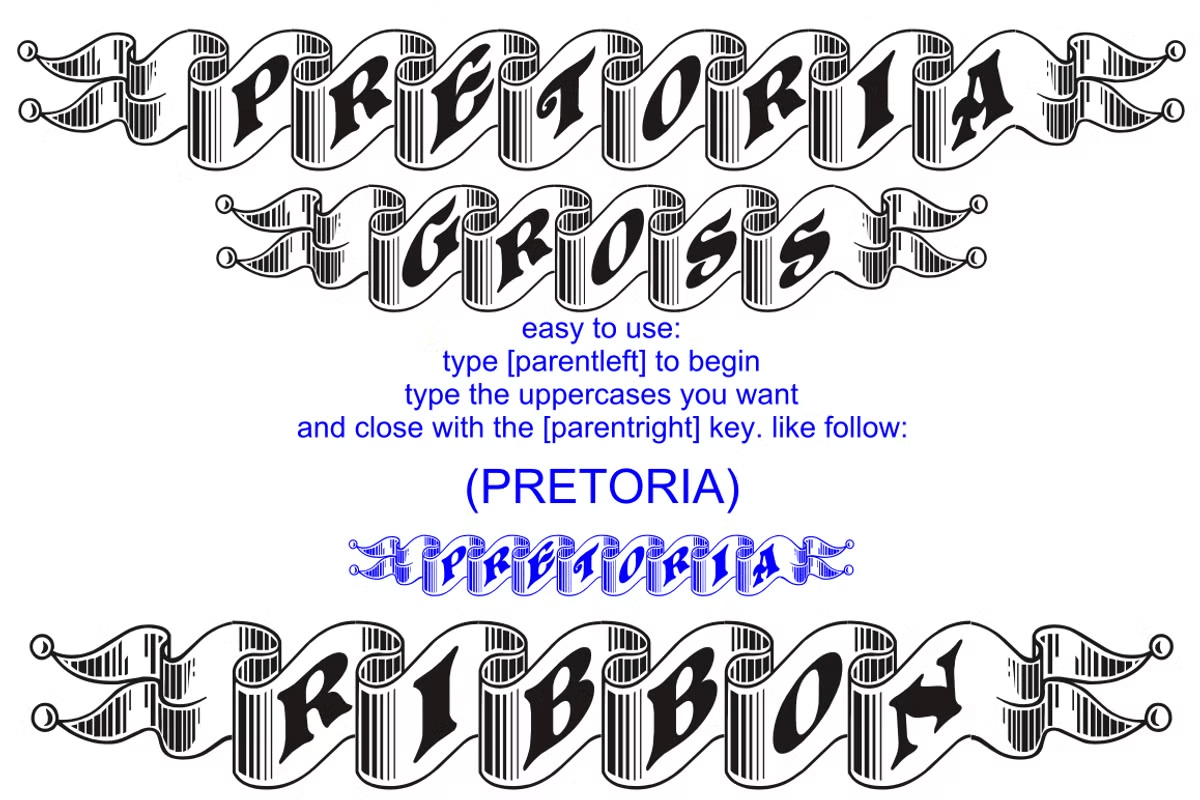
Pretoria Gross
Pretoria Gross was designed with inspiration from art nouveau, packed full of vivacious curves. Three styles are included in the family: Regular, Shadow, and functional Ribbon to make special headpieces and vintage layouts. It contains a limited set of characters and works best when used for display purposes.